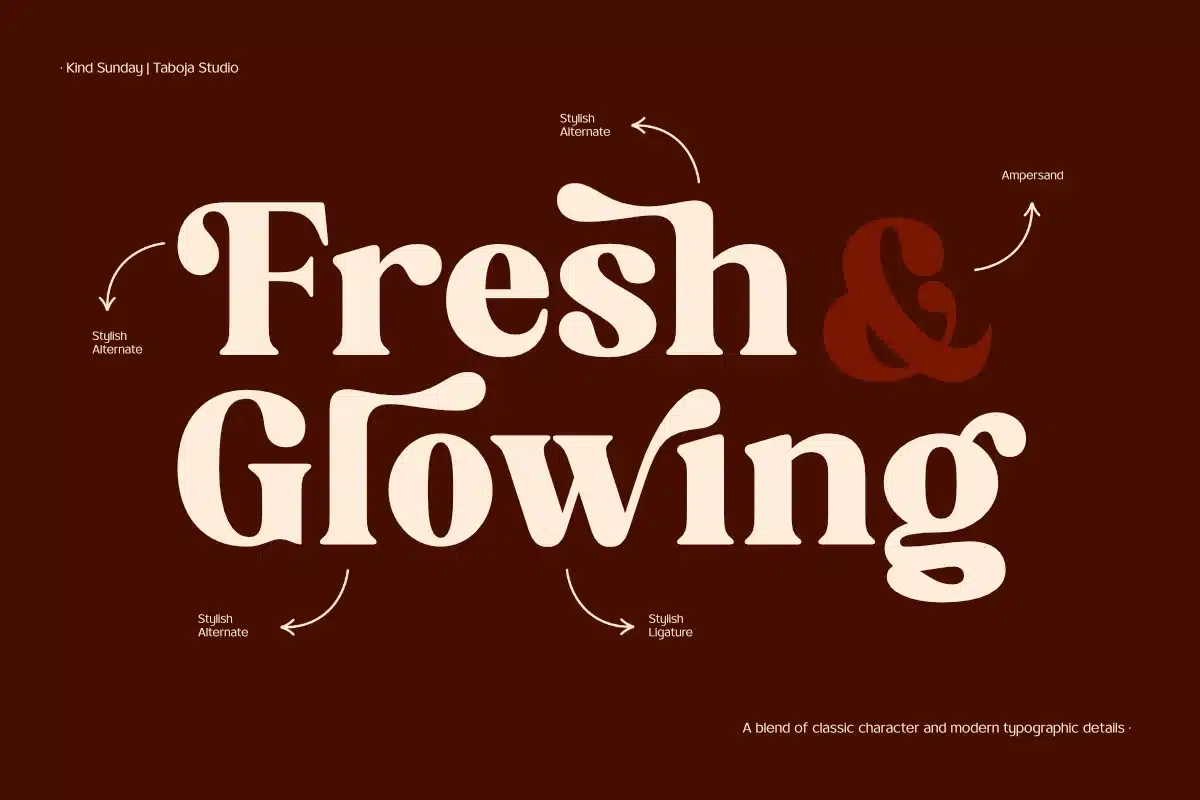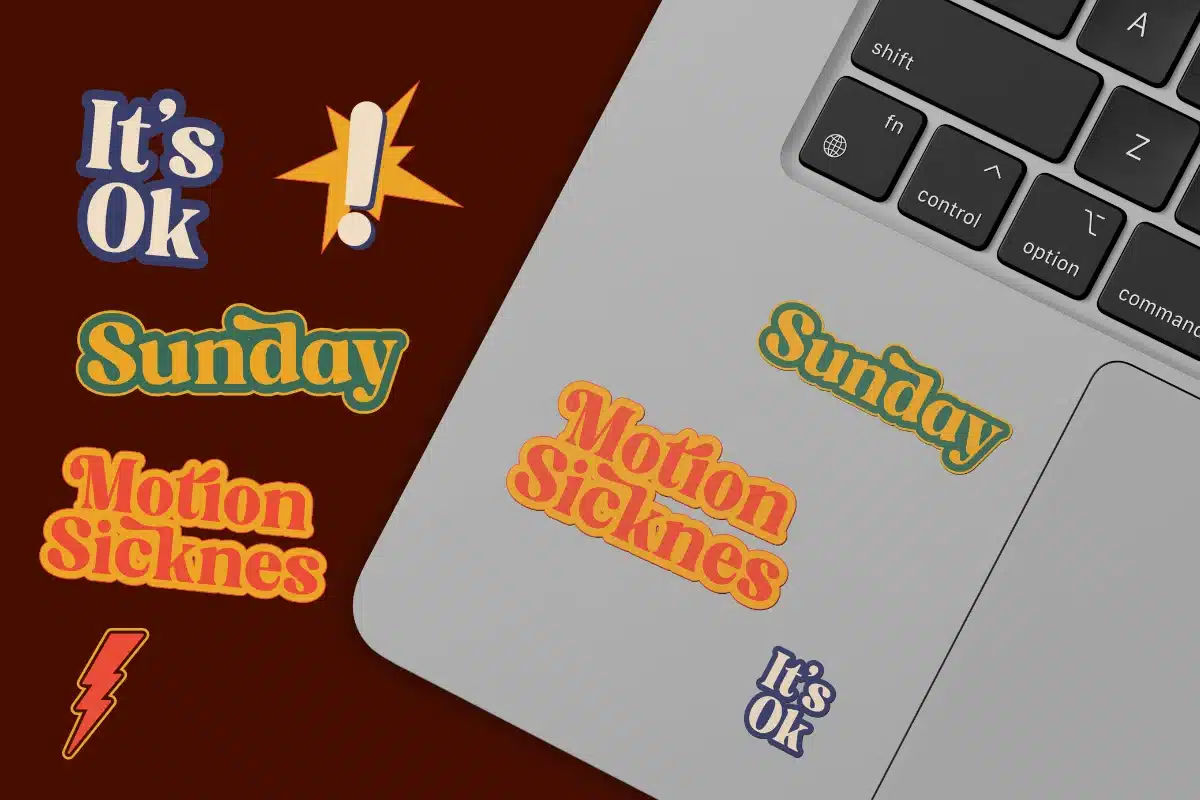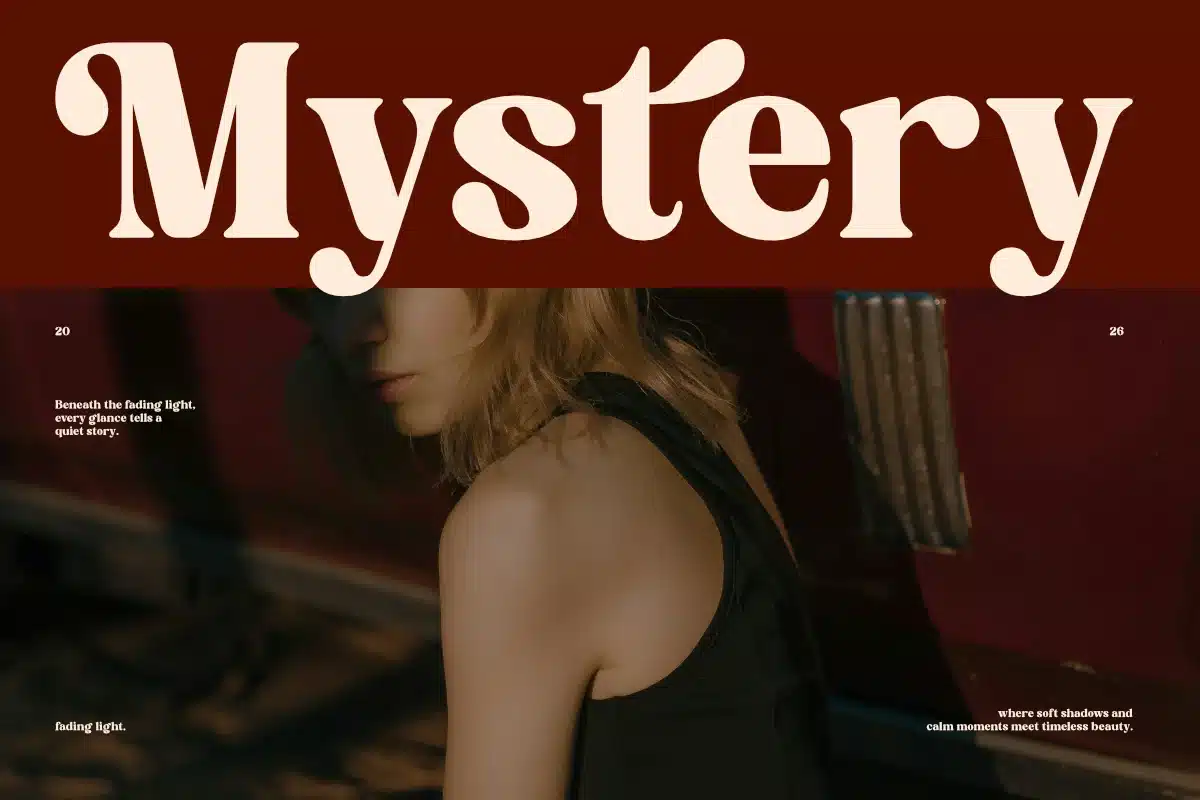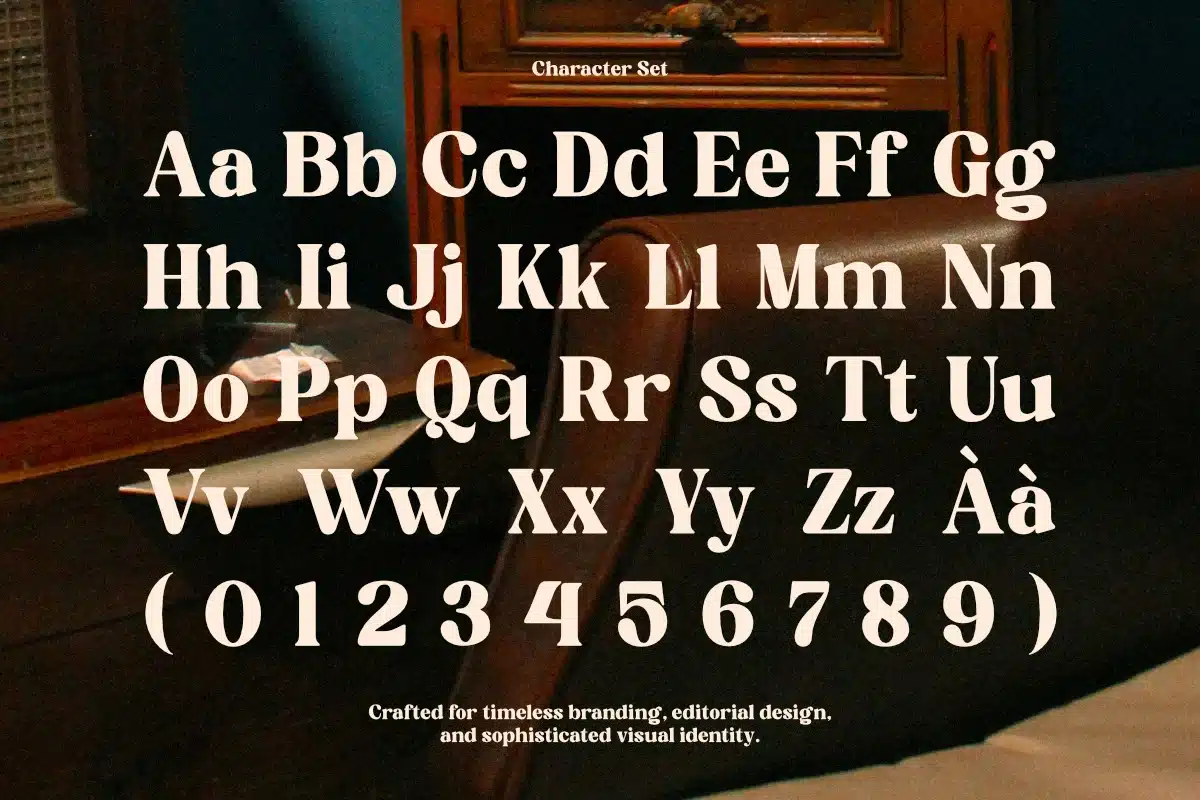
Kind Sunday Elegant Retro Serif Typeface Font
TBJ Kind Sunday is an elegant retro serif typeface crafted to bring timeless charm and refined personality into modern design.
Designed with soft curves, distinctive serifs, and expressive letterforms, Kind Sunday delivers a graceful yet confident presence. Its classic inspiration combined with subtle contemporary touches creates a warm, nostalgic aesthetic that feels both vintage and fresh.
Created for high-visibility use, Kind Sunday shines beautifully in headlines, editorial layouts, branding, posters, packaging, and lifestyle visuals. Its stylish forms and balanced proportions offer strong visual appeal while maintaining readability at larger sizes.
With a romantic and sophisticated character, Kind Sunday is perfectly suited for creative direction, fashion branding, beauty products, cafés, and premium lifestyle concepts where elegance and identity matter.
Kind Sunday includes a complete character set, numerals, and essential punctuation—making it a versatile display choice for designers seeking a distinctive and expressive typographic voice.
- Stylish Alternates Dan Ligatures
- Uppercase, lowercase, and numerals
- Perfect for branding, fashion, beauty, and lifestyle design
TBJ Kind Sunday is made to be seen graceful, timeless, and full of character.